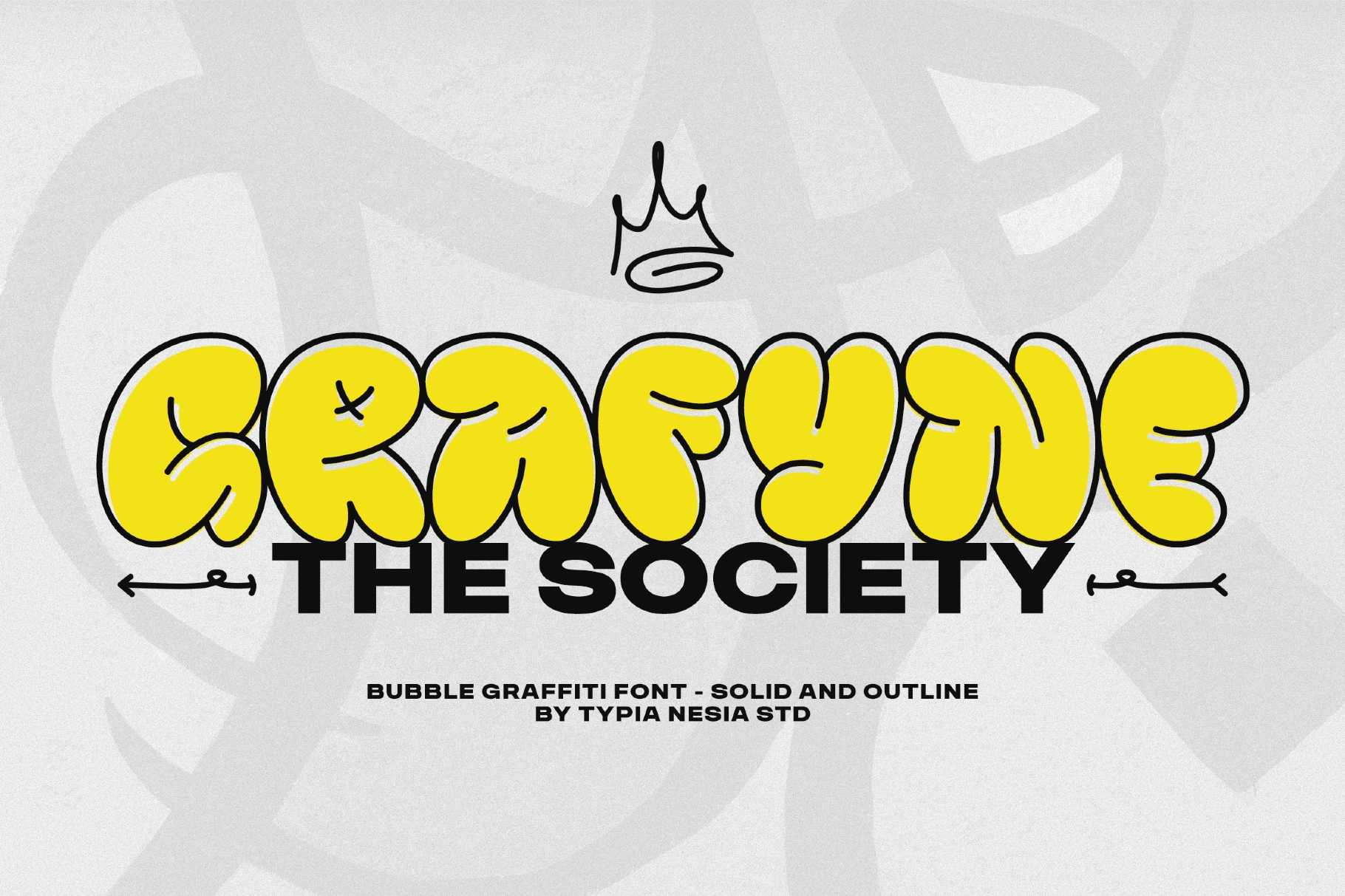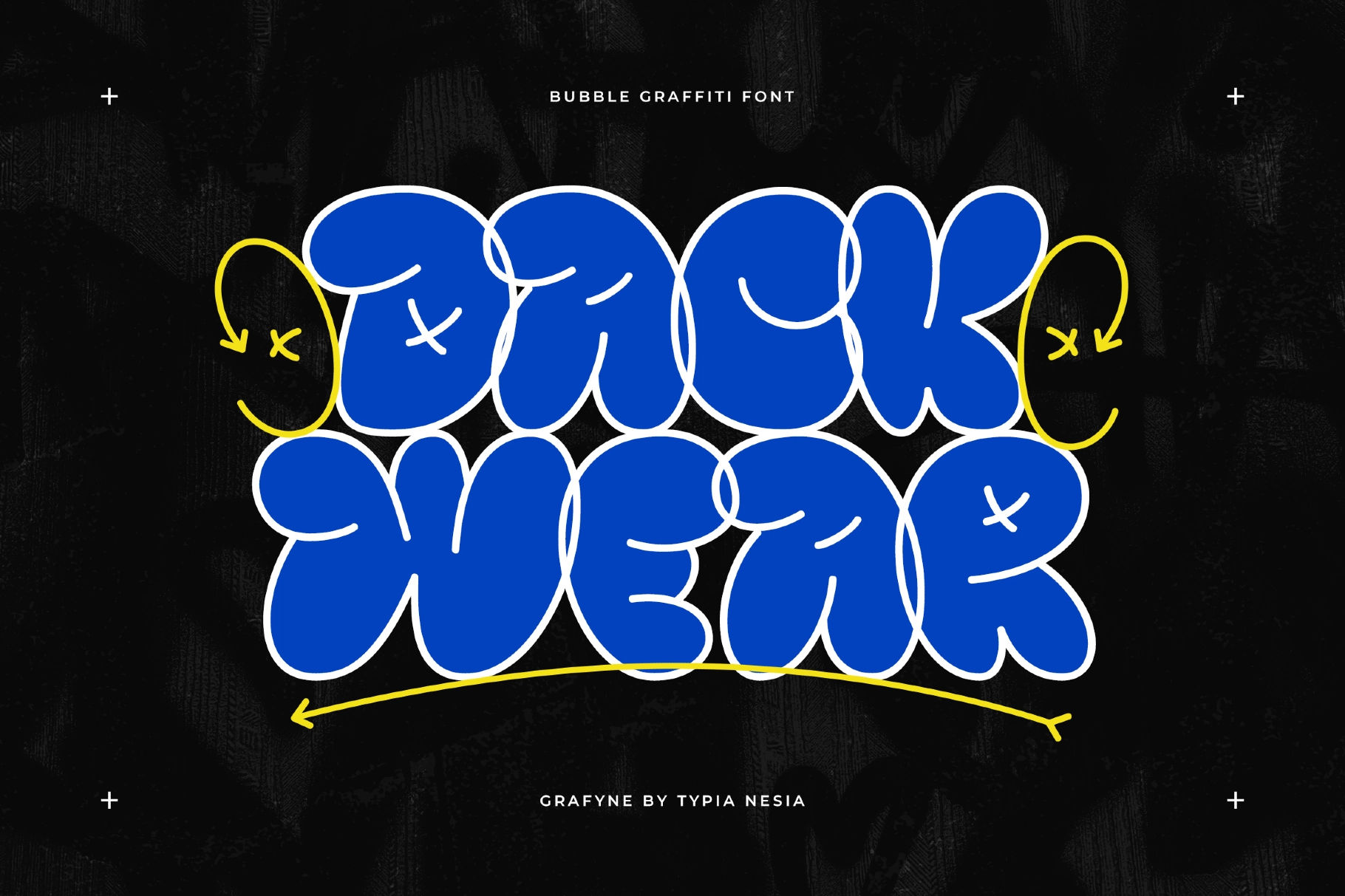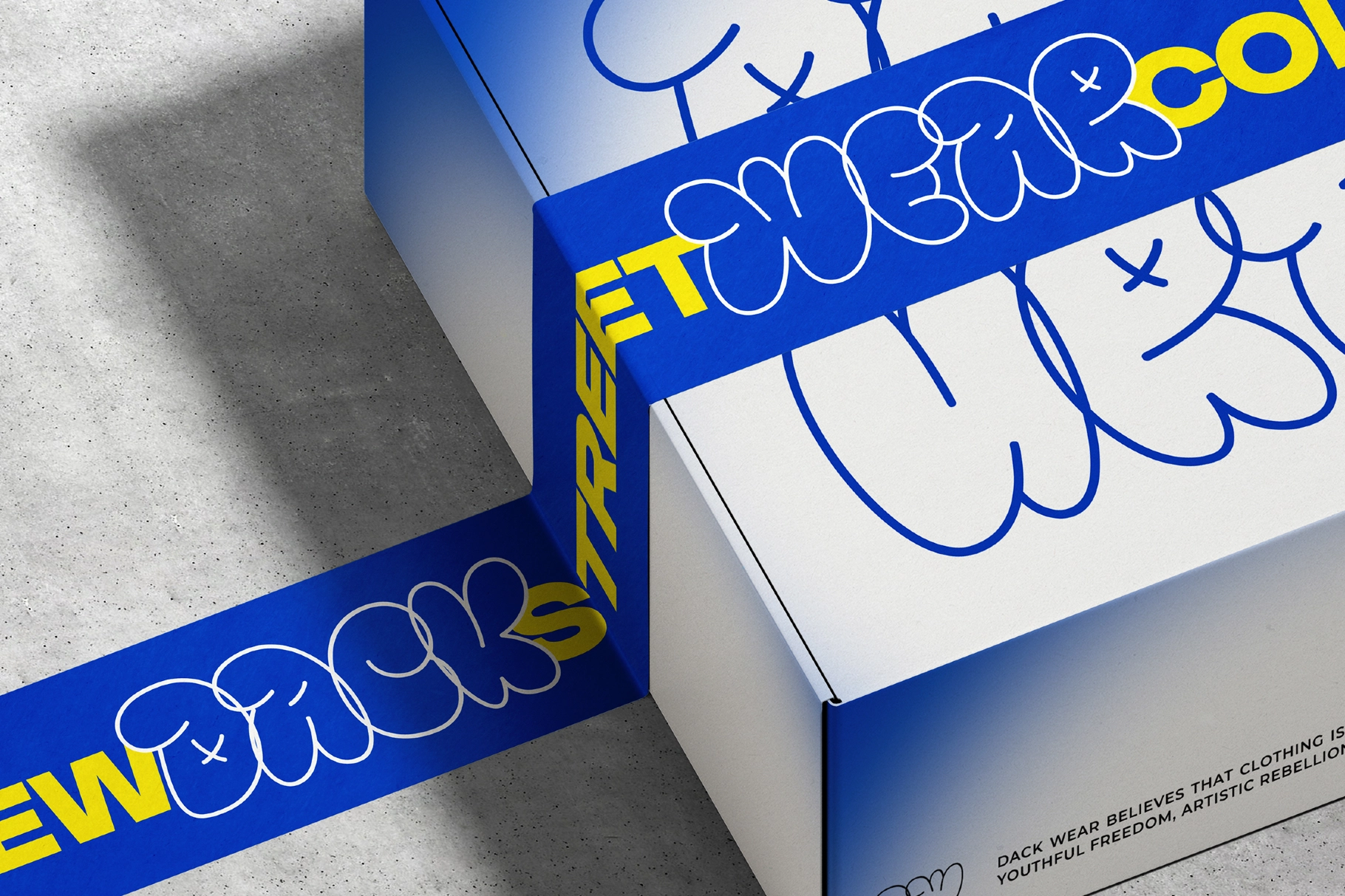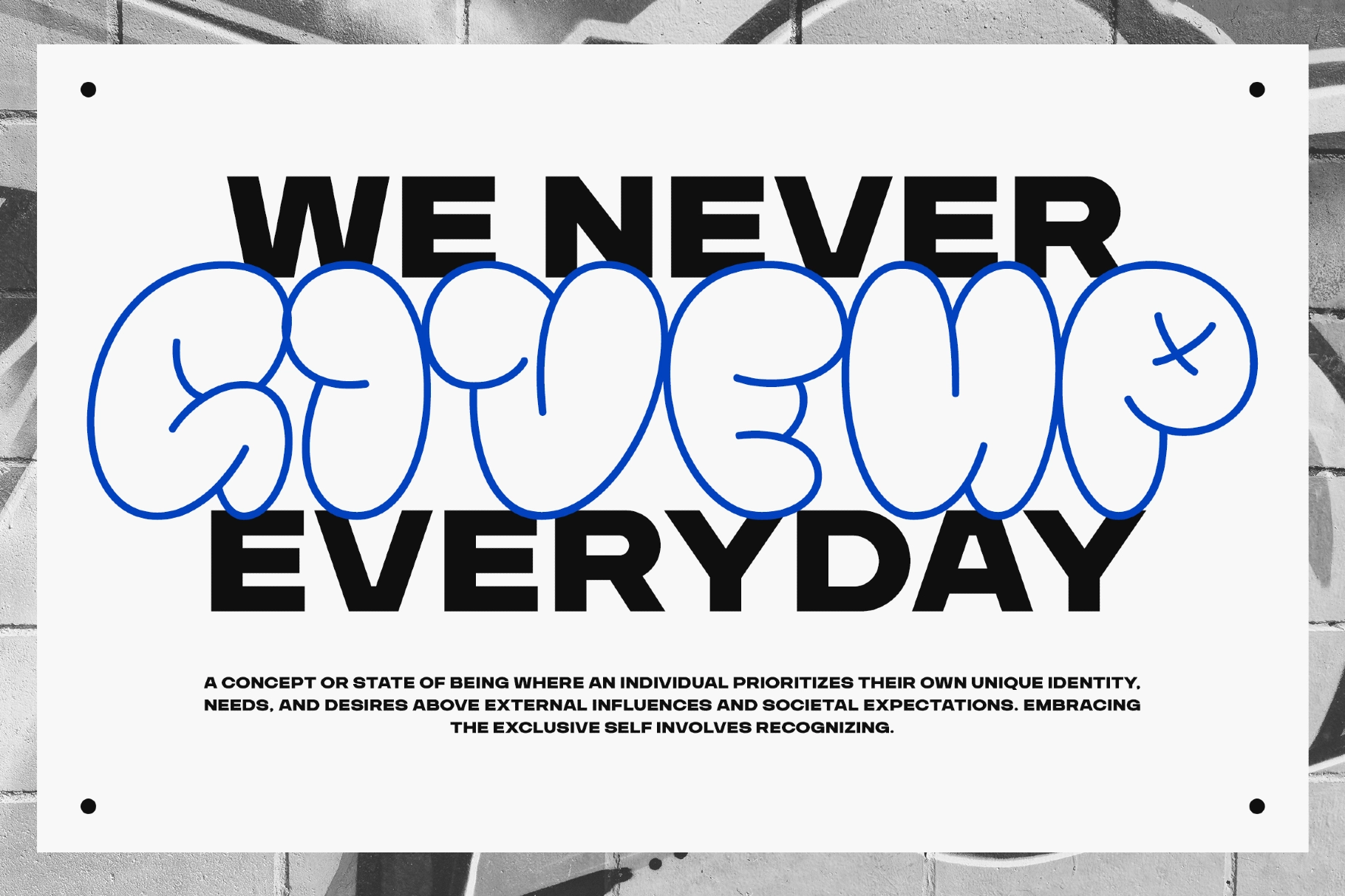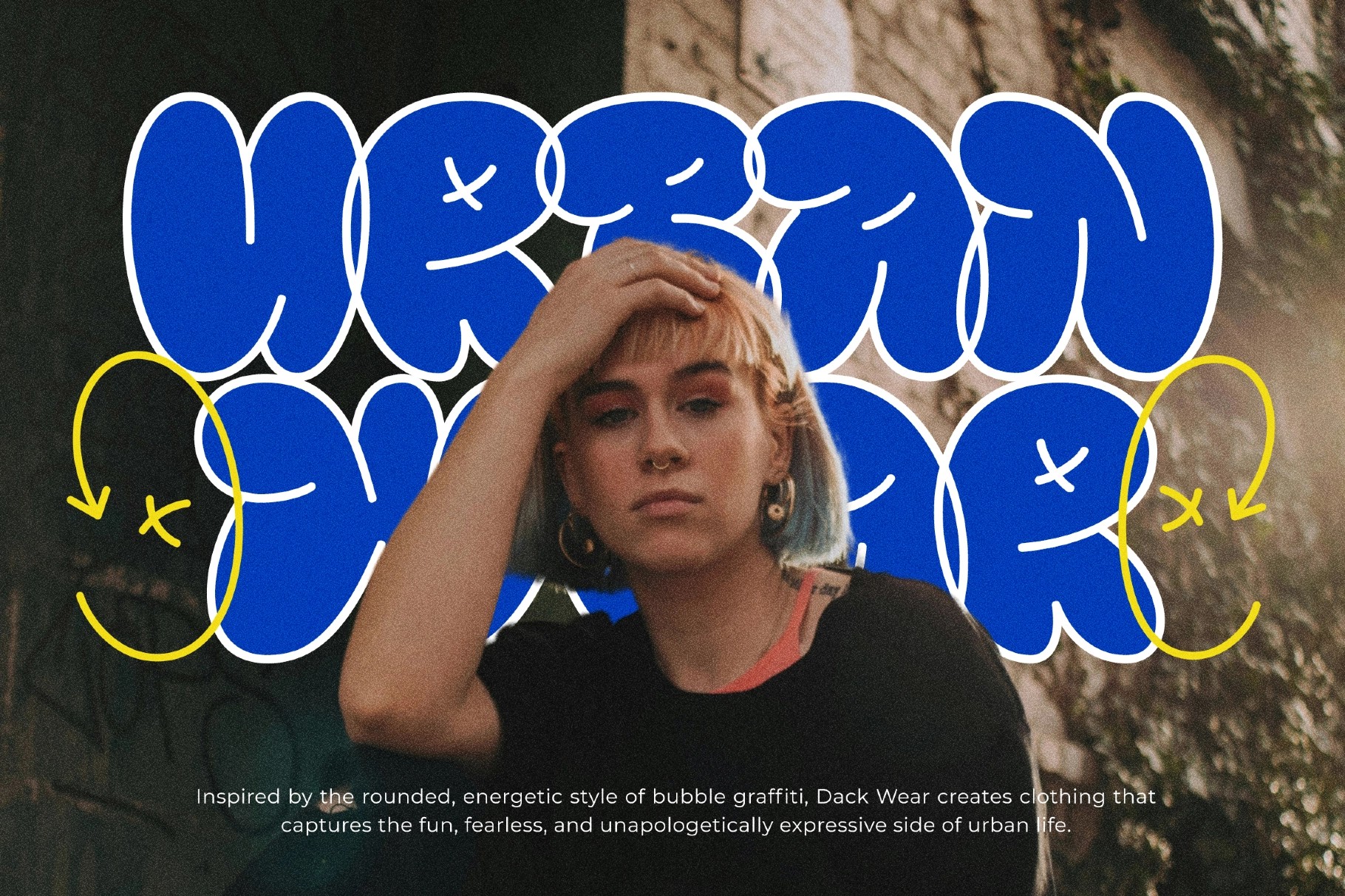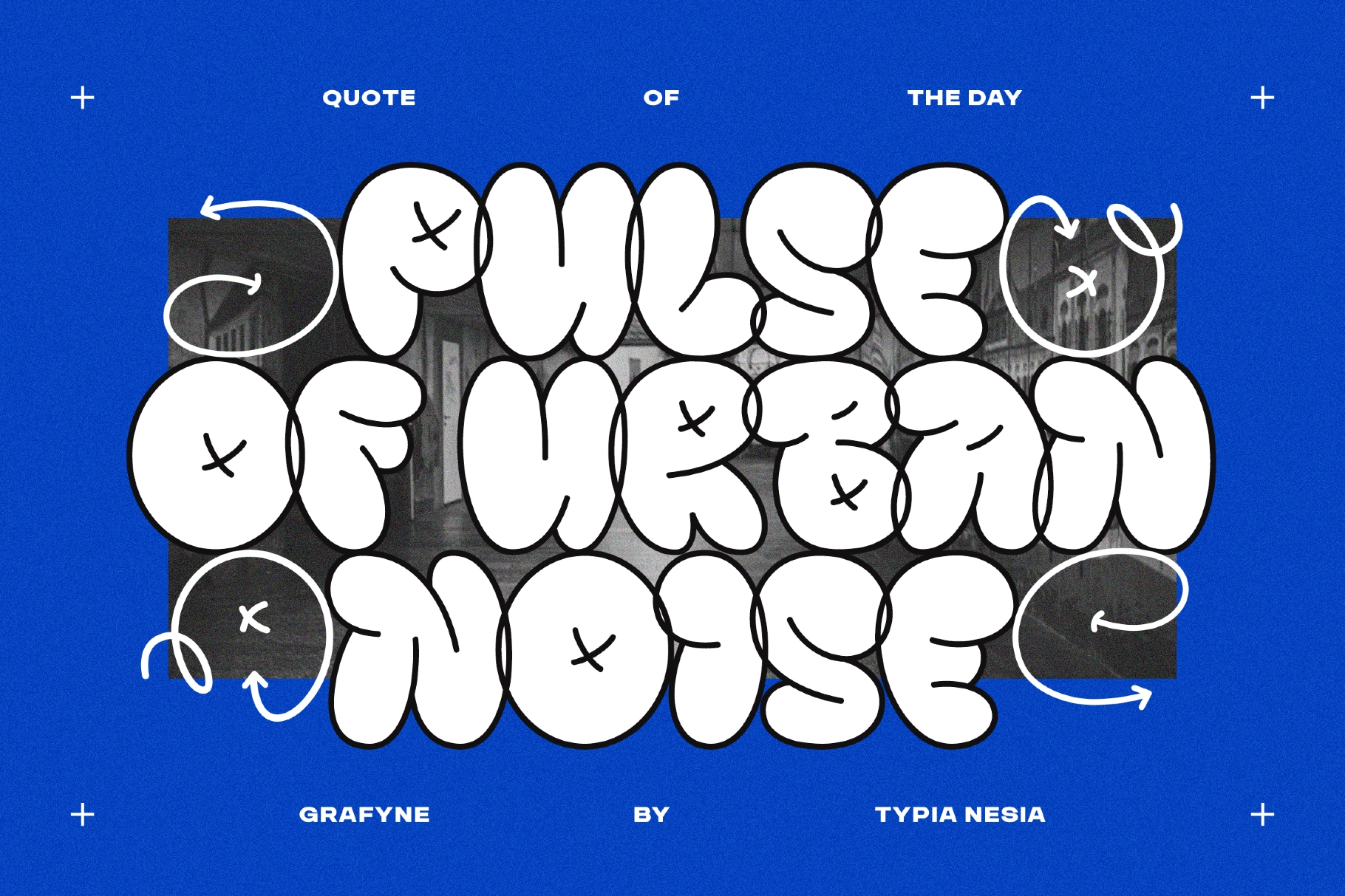
Grafyne - Balloon Graffiti Font
Grafyne – Balloon Graffiti Font is a bold and playful display typeface inspired by modern graffiti culture and vibrant street art. Its rounded bubble letterforms and balloon-like shapes create a lively, energetic look that instantly grabs attention and brings a fun urban personality to any design.
Designed with a strong streetwear and comic-inspired aesthetic, Grafyne blends expressive graffiti style with clean, readable forms. The soft curves and bold structure give the font a dynamic presence, making it perfect for projects that need color, attitude, and visual impact.
- 2 Styles: Solid & Outline
- Uppercase & Lowercase characters
- Numbers, punctuation & symbols
- Bold bubble balloon style
- Optional outline style